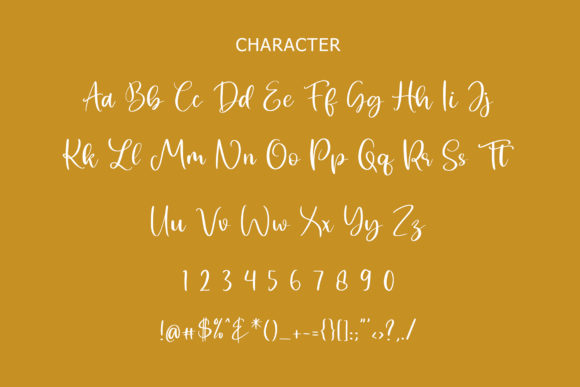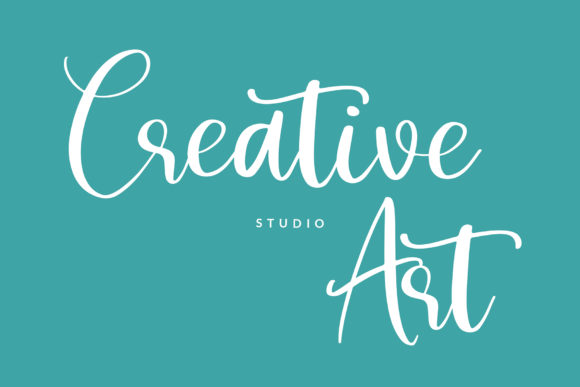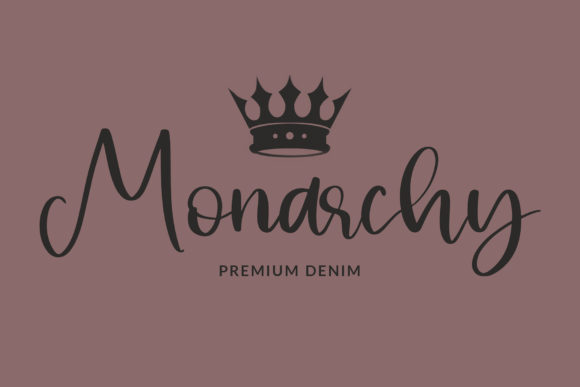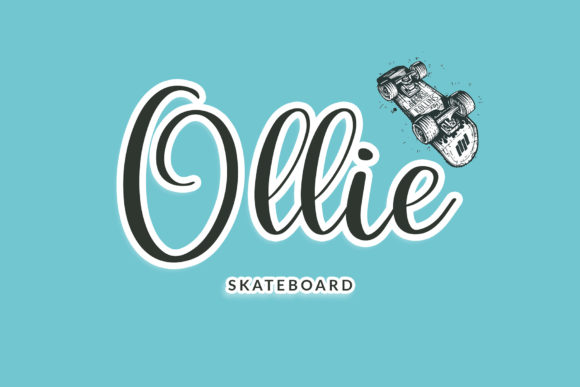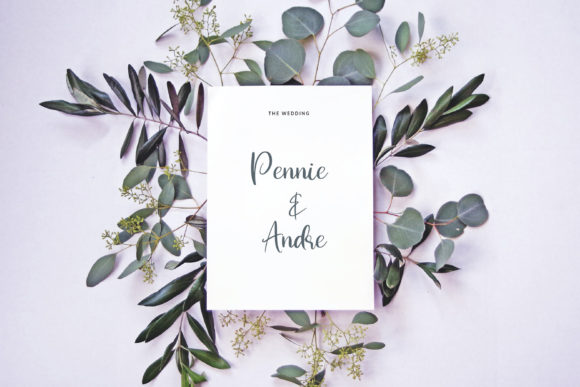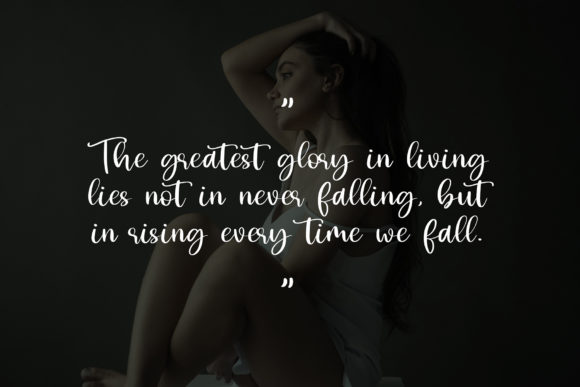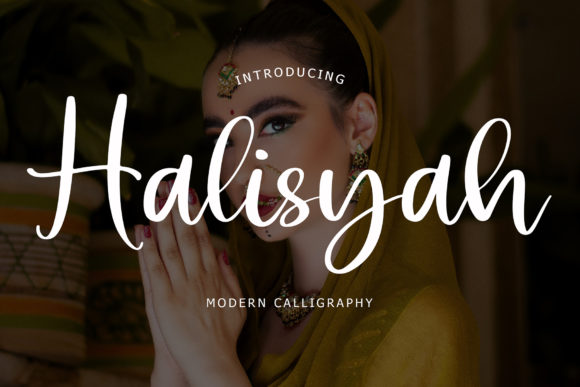
Halisyah Font: The Perfect Addition to Your Design Arsenal
In the world of typography, fonts play a crucial role in conveying the message and aesthetic of a design. For designers and crafters, finding the right font can be a daunting task. However, if you’re looking for a modern and sweet handwritten font that exudes elegance and delicacy, look no further than Halisyah Font.
What is Halisyah Font?
Halisyah Font is a beautiful, modern handwritten font that is perfect for adding a touch of sophistication to your designs. Its delicate and elegant strokes make it an ideal choice for a wide range of projects, from wedding invitations and branding materials to social media graphics and digital art.
Key Features of Halisyah Font
- Modern and Sweet: Halisyah Font boasts a fresh and contemporary look that is sure to capture the attention of your audience.
- Handwritten Elegance: The font’s handwritten style gives it a personal and unique touch that sets it apart from more traditional fonts.
- Delicate and Refined: The delicate strokes and refined lines of Halisyah Font make it perfect for designs that require a touch of sophistication.
- Versatile: Whether you’re working on a digital project or a print design, Halisyah Font is versatile enough to fit seamlessly into any format.
Why Choose Halisyah Font?
So, why should you choose Halisyah Font for your next design project? Here are just a few compelling reasons:
- Adds a Personal Touch: The handwritten style of Halisyah Font gives your designs a personal and human touch that resonates with audiences.
- Enhances Readability: Despite its delicate nature, Halisyah Font is remarkably readable, making it perfect for body text and headings.
- Unique and Memorable: With its unique and elegant style, Halisyah Font can help your designs stand out in a crowded marketplace.
How to Use Halisyah Font in Your Designs
Using Halisyah Font in your designs is easy. Here are a few tips to get you started:
- Pair it with Other Fonts: Halisyah Font pairs beautifully with other fonts, so don’t be afraid to experiment with different combinations.
- Use it for Headings and Titles: The elegant style of Halisyah Font makes it perfect for headings and titles, where you want to make a statement.
- Add it to Your Branding Materials: Use Halisyah Font to add a touch of sophistication to your branding materials, such as business cards and brochures.
- Experiment with Colors and Textures: Halisyah Font looks great in a variety of colors and textures, so don’t be afraid to get creative.
In conclusion, Halisyah Font is a beautiful and versatile font that is perfect for designers and crafters looking to add a touch of elegance and sophistication to their designs. With its modern and sweet handwritten style, delicate strokes, and refined lines, Halisyah Font is sure to become a staple in your design arsenal. So why wait? Download Halisyah Font today and start creating stunning designs that capture the attention of your audience.
Whether you’re a seasoned designer or just starting out, Halisyah Font is an excellent choice for any design project. Its unique and memorable style, combined with its ease of use, make it an ideal font for designers of all skill levels. So go ahead, give Halisyah Font a try, and see the difference it can make in your designs.